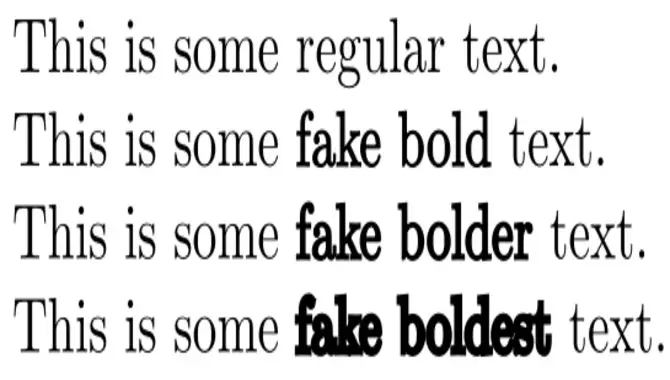
How To Properly Utilize Latex Bold Font In Your Writing – All Guideline
As a writer, it’s important to understand the tools available to you to create the best possible work. One feature often overlooked is the use of bold font, particularly in the context of LaTeX writing. Bold font can emphasize and draw attention to important points, making your writing more effective and impactful.
However, it’s important to use bold font properly and strategically, as overuse or misuse can detract from the effectiveness of your writing. Here, we’ll explore the best practices for utilizing bold font in LaTeX writing. We’ll cover the basics of applying the bold font to your text and more advanced techniques to utilize latex bold fonts.
They can also attract the reader’s attention, as they are usually more significant than the surrounding text. However, when writing in LaTeX, it is essential to be precise with bold fonts. We’ll discuss the benefits of using latex bold font and how to use it correctly in your writing.
How To Properly Utilize Latex Bold Font In Your Writing
How To Use Bold Font In Latex
Bold fonts in LaTeX can emphasize your writing and make it stand out. The command for Bold text in LaTeX is \textbf{}. You can combine the \textbf{} and \textit{} orders to get italic and bold text. If you want to apply bold to a larger text, you can use \begin{} and \end{} commands to indicate the beginning and end of the bolded section. Using bold font in LaTeX can be a great way to emphasize key points in your writing. Here are some tips for how to use bold font effectively:
• Use it sparingly. Bold font should be used sparingly, as too much can make your text difficult to read and detract from its overall impact.
• Emphasize essential words or phrases. Bold font can be used to draw attention to important words or phrases that you want to emphasize.
• Use it consistently. It’s essential to be consistent in using bold font throughout your document. This will help ensure that your text looks clean and professional.
• Please don’t use it for headings or titles. While the bold font is commonly used for headings and titles, in LaTeX, it is better to use the appropriate sectioning commands (e.g., \section, \subsection) instead.
It’s important to note that when using different commands for stacking type styles like bold and italic, not all style combinations have a font associated with them. This means that some combinations may not render correctly.
Test your formatting and check how it looks to ensure the final product is clear and readable. With these tips in hand, you can unleash the full potential of bold fonts in LaTeX and enhance the visual impact of your writing.
6 Easy Ways To Properly Utilize Latex Bold Font In Your Writing
A bold and modern font for creative projects, such as posters, websites, and book covers. A bold font has a relatively high contrast between the thick and thin strokes. Most importantly, bold fonts can help you emphasize your words and draw attention to specific text sections.
When you choose to use a latex font in your writing, you must ensure it’s properly utilized. Here are some tips on how to properly use the bold font in your paper:
1. Use it in headings, titles, and subheadings: Bold-font headlines grab attention and make a statement. It can also be used on book or magazine covers, posters, or other printed materials to draw attention.
2. Use it in body text for emphasis: Bold-font body text can be used for power, such as when writing about something shocking.
3. Add a bold font tag to your email subject lines: Email subject lines are essential to any email marketing strategy, and bold-font titles can make them stand out.
4. Use it as a typographical element: Bold font type can add interest and texture to a design, mainly when used as an aesthetic rather than a functional one (for example, when setting body copy apart from surrounding graphics).
5. Add bold-font buttons or icons to your website: A bold-font button or icon can help draw attention to certain parts of your website and give it a more dynamic feel.
6. Use bold font on social media posts: An aggressive texture like the bold font on social media posts will catch readers’ eye and make them pay more attention to what you’re saying.
Tips For Using Latex Bold Font Effectively
Use a good-quality latex font for bolding text. You should use a latex font with a minimum weight of 70 to 100. This ensures that the letters are bold but not illegible. A good quality latex font will have no gaps or sloppiness in the letters and will flow smoothly.
You can test the quality of a font by pressing it against the paper. If the ink does not spread evenly, it is of poor quality and may cause printing issues with your document. Choosing a well-known brand is best so you can be assured of its quality and reliability.
You can also test your chosen font on your computer screen to ensure that it displays correctly and that there are no errors or missing characters in the text. You can also use tools like Microsoft Word’s Fonts panel to check how the text appears onscreen before using it in your document.
Finally, consider using a more significant or bolder size for your text if using a smaller one does not work well. Also, ensure your fonts are legible on all media types, from paper and books to screens and mobile devices.
Common Mistakes To Avoid With Latex Bold Fonts
LaTeX is a popular programming language for technical writing. It uses unique fonts designed to look like the printed page, making your work more readable by your readers. However, there are inevitable mistakes that you can make with LaTeX bold fonts that can make your document seem unprofessional and can even damage its credibility. Here are some of the common mistakes to avoid with LaTeX bold fonts:
1. Making font sizes too big or too small: This can be a problem if you want to use bold fonts in your document but don’t know how much space they will take up on the page. The solution is first to check the default font size used by LaTeX. If it’s too small, you can increase it or use a different one as part of a larger project. If it’s too large, consider using another format (PDF) instead.
2. Choosing an inappropriate font: Do not select an obscure font just because it looks cool or is trendy. It could look odd and difficult to read in certain situations. A good font choice should be simple and easy to read on Mac OS X and Windows computers.
3. Using an old version of LaTeX: Many people still use an outdated version of LaTeX (such as 2e or 2c). Use the most recent version, which has improved over time and will provide better output quality and compatibility with other software programs, such as Microsoft Word.
Why Should You Use Bold Fonts In Latex
Benefits Of Using Bold Fonts In Latex
LaTeX provides several commands to display bold text in your writing, including the \textbf{} and \emph commands. The \textbf{} command is a simple way to create bold text in LaTeX, while the \emph command can highlight specific text as aggressive, depending on its placement. Besides, LaTeX makes creating bold and italic text easy, allowing you to customize your documents per your preferences.
Using LaTex commands for bold font helps to distinguish the key points from other text, making them easier to read and remember. Moreover, stacking different styles is possible with LaTeX but using slightly different commands. Using bold fonts in LaTex is necessary for creating easy-to-read and well-crafted documents.
Advantages Of Using Latex Bold Font In Your Writing
Latex is a powerful tool for writers that allows easy text formatting, including using bold font. The \textbf{} command is used to create bolded text in LaTeX, a simple and effective way to emphasize specific words in your writing.
The advantages of using bold text are that it stands out, provides visual cues to the reader, and helps communicate important information more effectively. Additionally, the \emph command can be used for emphasis and behaves like \textit{} in some cases. However, best practice dictates that these two commands should not be used simultaneously.
Macro use can simplify the process of writing bold and italic text, making it easier for writers to produce high-quality documents without spending unnecessary time formatting their text. Using bold text in LaTeX is a powerful tool to help writers communicate their ideas more effectively and create visually appealing, easy-to-read documents.
How Latex Bold Affects Your Writing
Latex bold can have a significant impact on your writing. Using bold font can help essential words or phrases stand out and grab the reader’s attention. It can also emphasize specific points or ideas, making them more memorable for the reader. However, it’s important to use bold sparingly and strategically – too much-bolded text can overwhelm and distracts the reader.
This makes it ideal for use in creative projects focusing on impact rather than readability. It can help create a strong focal point or draw attention to certain design parts. Bold fonts can impact the meaning of a piece of text and draw the reader’s attention.
Additionally, it’s essential to consider the context in which you’re using bold font. For example, using italics or underlining may be more appropriate than bolding certain words or phrases in academic writing. Ultimately, the decision to use bold font should be based on the specific needs of your paper and your intended audience.
Use Latex Bold Font for Maximum Effect
When using the bold font in LaTeX, there are a few key factors to consider to achieve maximum effect. First and foremost, bold font should be used sparingly and strategically, as overuse can be overwhelming and distracting for the reader.
One practical use of the bold font is to draw attention to important information or headings in a document. For example, you might use bold font to highlight key points in a presentation or to make section headings stand out in a report.
Another consideration is the size of the bold font, which should be chosen carefully based on the context of the document and the desired level of emphasis. When used thoughtfully and intentionally, latex bold font can be a powerful tool for conveying information and impacting your audience.
Using Latex Bold in Correspondence and Emails
Using Latex Bold in correspondence and emails can be valuable for emphasizing important information and making your message stand out. Whether highlighting critical points in a business proposal or simply drawing attention to an upcoming event, bold text can help grab the reader’s attention and convey your message more effectively.
However, it is essential not to overuse bold text, as this can make your message cluttered and challenging to read. Instead, use it strategically to highlight the most critical information and make your message clear and concise. With some practice, you can quickly become a pro at using Latex Bold in your correspondence and emails.
Tips for Improving the Appearance of Documents Written in Latex Bold Font
When it comes to creating documents in Latex, the appearance of your text is crucial. Bold font can be an effective way to emphasize important points and make your paper more visually appealing. Here are some tips for improving the appearance of papers written in Latex bold font:
• Use a high-quality font. The quality of your font can significantly impact how your document looks overall. Choose a bold font that is clear and easy to read.
• Be consistent with your use of bold. Too much bold text can be overwhelming and distracting, while too little can make your document look bland. Strike a balance by using bold sparingly but consistently.
• Use bold for headings and subheadings. This can help to break up your text and make it easier to read. Ensure that your headings and subheadings are clearly defined and stand out from the rest of your text.
• Experiment with different font sizes. Depending on the size of your document and the amount of text you have, you may want to adjust the size of your bold font for maximum impact. Play around with different sizes until you find what works best for you.
Now that you know how to use bold fonts in LaTeX effectively, there is no reason why you shouldn’t be using them. The bold fonts make your writing look more attractive and make your work easier to understand. So, use bold fonts next time you write a paper or an essay.
Using bold font in LaTeX can enhance the readability and organization of your document. By understanding the different commands and options available, you can effectively emphasize important text and headings.
Whether you are a student, researcher, or professional, implementing the bold font in your writing can make your work stand out and communicate your message more effectively. So, don’t be afraid to experiment with bold font in your LaTeX documents and see how it can improve your writing.
Frequently Asked Questions:
1. What Are The Four Key Tips For Properly Utilizing Latex Bold Font In Your Writing?
Ans. Four essential tips to better utilize latex bold font in your writing:
1. Use \textbf{} to display bold text in Latex.
2. Use \emph{} to emphasize text or combine with \textbf{} for combined effects.
3. Use \begin and \end commands for more significant amounts of text or stack styles.
4. Avoid using \it and \bf commands as they don’t preserve previous techniques.
2. How Do You Adjust The Size Of A Latex Bold Font?
Ans. To adjust the size of a latex bold font, use the command \textbf{}. This will display bold text in LaTeX. Controls and switches can access typical font shapes like italics and bold. Use the controls \begin{} and \end{} to put more significant amounts of text into specific styles. Hand-pick font weights to achieve a particular look or better match the consequences of other fonts in a LaTeX document.
3. What Common Problems Do People Experience When Using Latex Bold Font In Their Writing?
Ans. Some common problems people experience when using latex bold font in their writing are that the bold text does not appear as aggressive or that italics do not appear as italics. To display bold text in LaTeX, use the command \textbf{}. There are variations for emphasizing text in LaTeX, such as \emph{}.
4. How Can You Prevent Your Text From Appearing Too Bold Or Too Small When Using A Latex Bold Font?
Ans. The best way to prevent your text from appearing too bold or too small when using a latex bold font may vary depending on your preferences and usage. However, here are a few tips that may help you out:
1. Use the \textbf{} command to create bold text in LaTeX. This will set the font weight to bold.
2. Only use bold text for heavily emphasizing essential words or phrases. Otherwise, it can look hefty and overwhelming. If you want to highlight a phrase or expression, use the \emph{} command instead.
3. Use the \textbf{} command only for specific words, not whole sentences.
4. Avoid decreasing font size when using bold text. This can make the text harder to read and less legible.
5. Are There Other Benefits To Using Latex Bold Font In Writing?
Ans. Yes, there are other benefits to using latex bold font in writing. For one, the \textbf{} command displays Bold text. There are variations of the \textbf{} command, such as \emph{} for emphasizing text. Bold and italic text can be created in LaTeX. Different controls are used to stack type style styles, such as bold and italic.